Looking for the best Cricut font for your next project? Youโre in the right place.
An ideal Cricut font can transform your craft project from ordinary to extraordinary. On the other hand, a poor font choice can lead to unimpressive results and material wastage.
This guide lists out the most popular and highly recommended Cricut fonts of 2024. Letโs dive in.
Best Fonts for Cricut
This list comes from our over six years of experience designing SVG files for crafters. Weโve tested hundreds of fonts with different Cricut machines. Tested the fonts’ performance in different craft projects. Our recommendations are not only pleasing but also practical for your crafting needs.
Country Kitchen
Best Overall Cricut Font
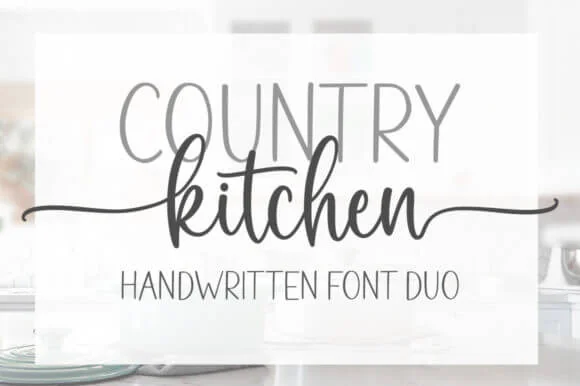
The Country Kitchen is a handwritten font pairing featuring a playful sans and a script font with tails. The smooth letters work well for vinyl projects of all sizes, big or small.
You can effortlessly create personalized quotes and names for your projects with the font duo. It’s perfect for adding a unique touch to crafts like t-shirts, signs, and tumblers.
Hello Honey
Most Popular Cricut Font
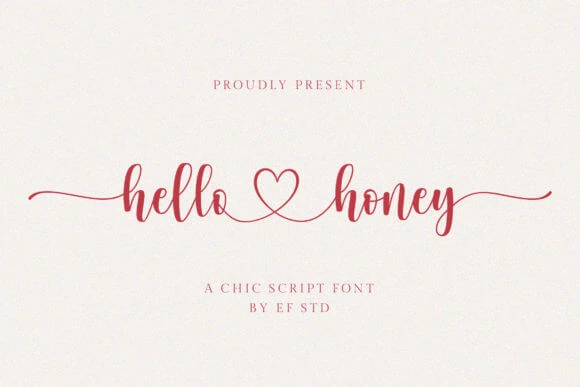
The Hello Honey font is a gorgeous typeface with unique features that make it stand out. It beautifully combines script-style writing with heart-shaped swashes and elegant tails. The font is popular for customizing crafts, especially for adding names to signs, cards, and invitations.
Beachwood
Best Cursive Cricut Font
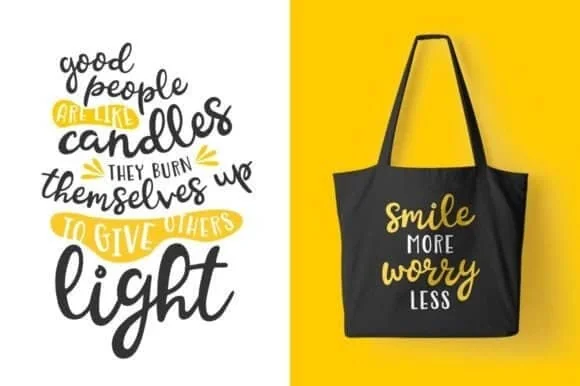
The Beachwood features a thick cursive font to add a stylish touch to your projects. The bold and bouncy letters are ideal for creating cheerful designs for children’s projects, back-to-school themes, teacher-related designs, and summer DIY crafts.
Heart Monogram
Best Cricut Font for Monograms
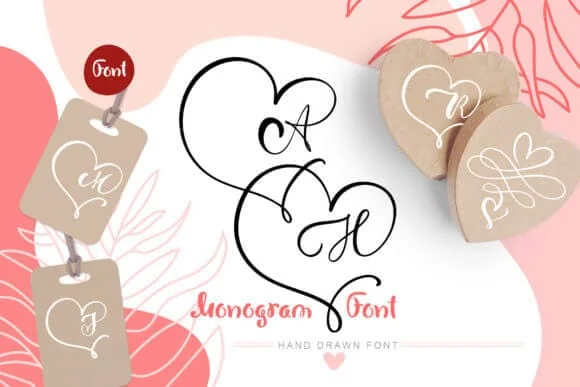
The Heart Monogram font is popular among crafters for creating Valentine’s Day and Wedding designs. The calligraphic strokes form unique swirly letters with a romantic and elegant appeal. You can use this font to effortlessly add a touch of love and charm to any crafting project.
Dear Agatha
Best Writing Font for Cricut
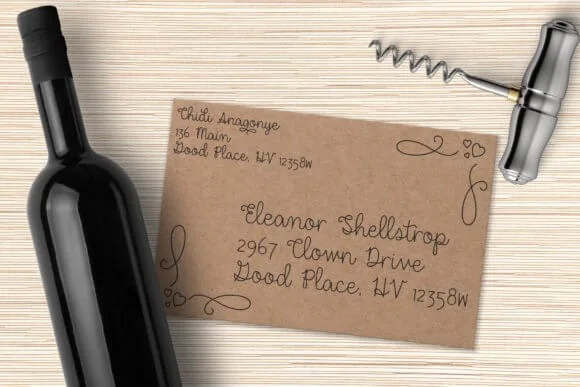
The Dear Agatha is a single-line Cricut font combination perfect for your pen, foil quill, and engraving projects for creating intricate and detailed designs.
The alternates and ligatures add a layer of customization, making it easy to tailor each project to your specific needs and style preferences.
Whether personalizing wedding invitations and envelopes or crafting beautiful greeting cards, the font lends itself perfectly to a wide range of creative projects.
Randy Sofia
Best Cricut Font for Wedding
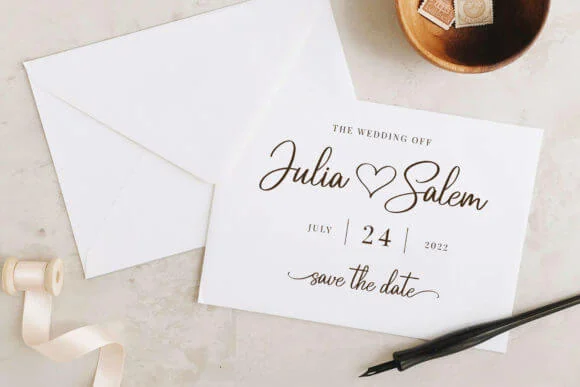
The Randy Sofia font is a stunning calligraphy typeface for creating Cricut wedding designs. The font includes hearts and swashes to add a romantic touch to your creations.
Whether you’re crafting intricate invitations, personalized place cards, or beautiful signage for the ceremony and reception, the font is perfect for creating memorable wedding crafts.
Love Mama
Best Cricut Font for Vinyl
The Love Mama font pairing features a modern cursive and playful sans font. The font is well-suited for vinyl-cutting projects, such as t-shirts, labels, and water bottles. The smooth letters of the cursive font and its distinctive tails ensure flawless results in vinyl projects of all sizes.
Varsity Gameday
Best Cricut Font for Numbers
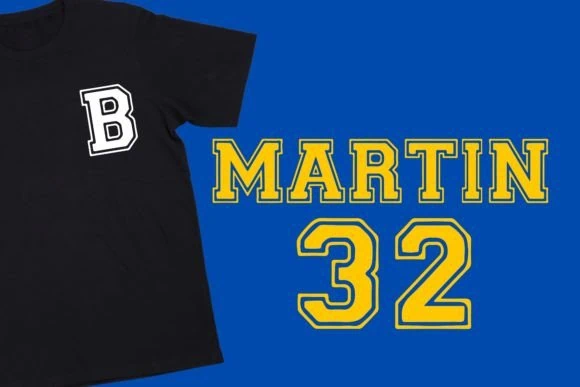
The Varsity Gameday font is a classic sports-inspired typeface characterized by its bold, blocky letters and numbers. Its all-caps style with outline adds a level of authority and impact, ideal for emphasizing team names and player numbers for school and university events.
Maddison
Best Cricut Font for Names
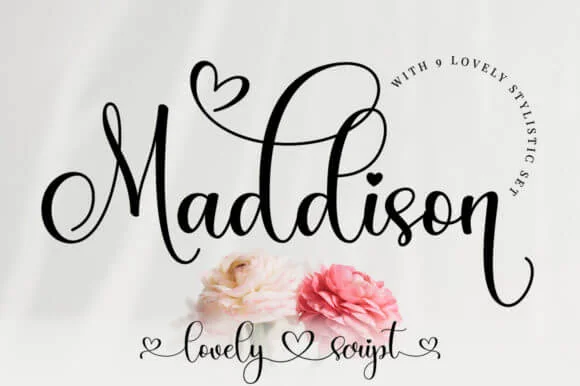
With its lovely script letters and fun hearts, the Maddison font is popular for personalizing crafts with names. The unique glyphs and swashes allow you to create truly one-of-a-kind projects.
Whether you’re creating invitations, home decor, or custom gifts, the beautiful flourishes add a special touch that takes your designs to the next level.
Hey Magnolia
Best Script Cricut Font
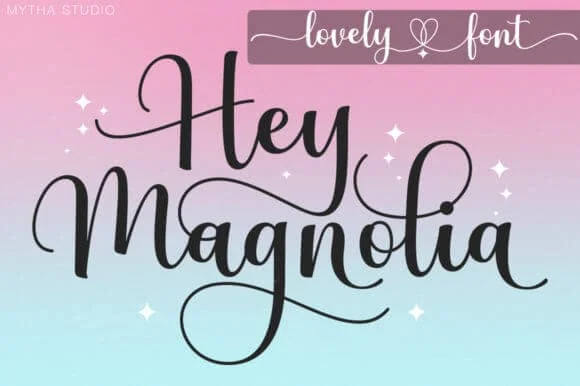
The Hey Magnolia font is a handwritten script font featuring elegant and playful letters. Whether you’re designing quotes, monograms, or names, Hey Magnolia is perfect for adding a personalized, handcrafted touch.
Sans Serif
Sans Serif fonts feature clean lines and a modern look, making them popular for projects such as signs and labels.
Serif
Serif fonts add a traditional look and feel to your projects. Use them to create designs for wood signs, business cards, and tumblers.
Handwritten
Handwritten fonts are perfect for DIY projects that require a personal, artistic feelโfor example, greeting cards, invitations, gift tags, and wall art.